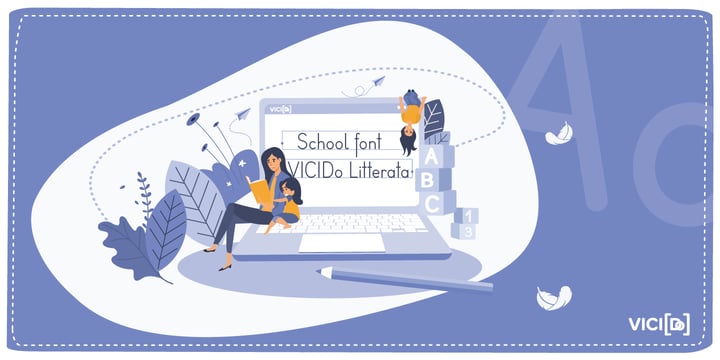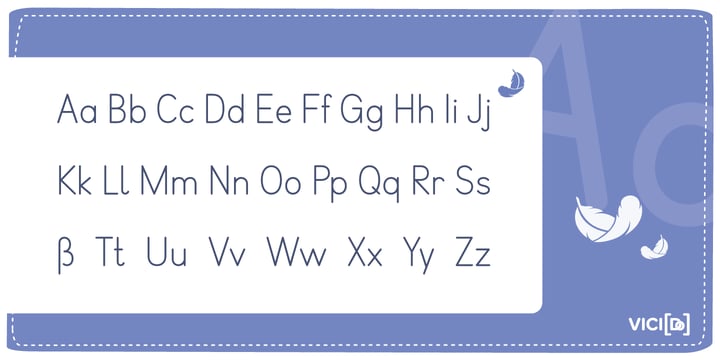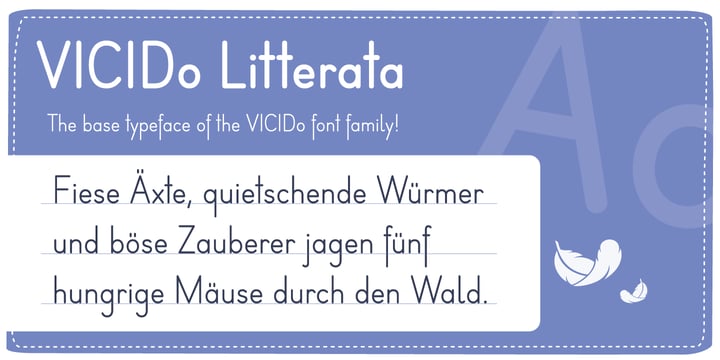
Martina Moser
Martina Moser is a graphic designer with a strong background in educational publishing. Over many years, she has designed numerous schoolbooks and learning materials, gaining deep insight into the practical, pedagogical, and typographic demands of everyday classroom use. Through this work, she developed a clear understanding of how strongly letterforms influence readability, writing acquisition, and the overall learning experience.
Driven by the desire to create typefaces that are both visually refined and pedagogically meaningful, Martina began developing her own fonts specifically for the educational sector. Her goal was to design typefaces that are easy to use for graphic designers and teachers alike, while fully complying with educational standards and handwriting guidelines. Her background in graphic design laid the foundation for balanced proportions, clear forms, and an aesthetic that supports content rather than distracting from it.
To ensure professional typographic quality, Martina expanded her expertise by working closely with experienced type designers and font engineers. Through this collaboration, she deepened her understanding of type design, font production, and the technical requirements of high-quality, versatile type systems. This exchange of knowledge became a defining influence on her approach to type design.
Martina’s work is guided by the belief that typography should be functional, accessible, and thoughtfully crafted — especially in educational contexts.